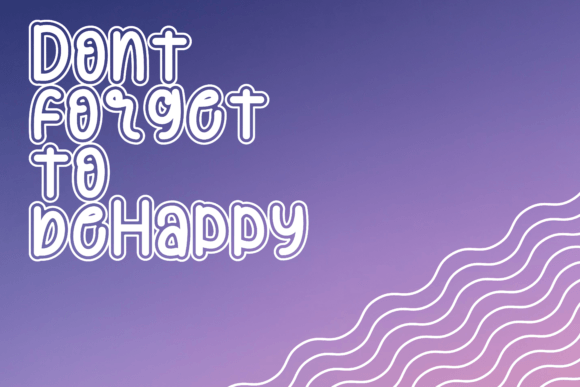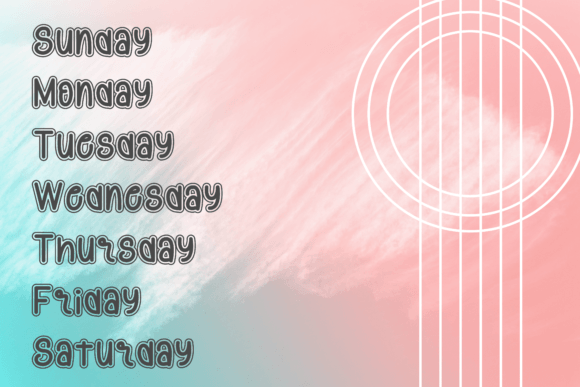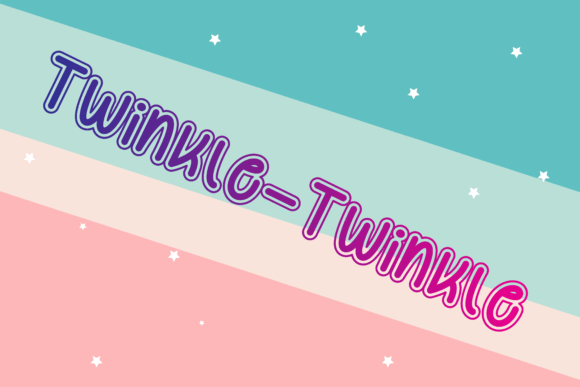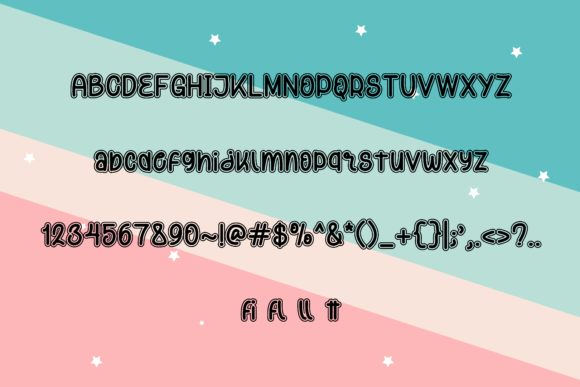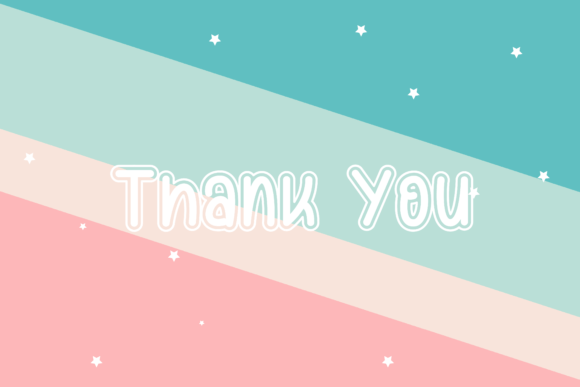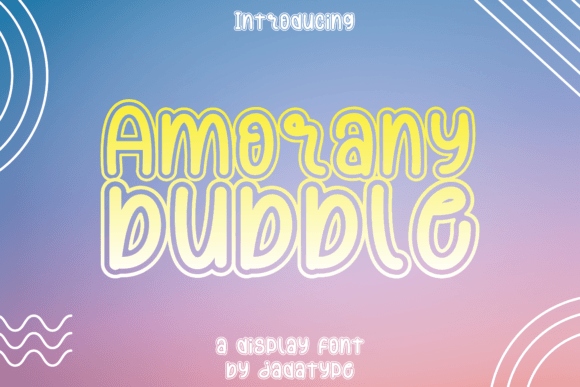
The Perfect Font to Bring Joy to Your Designs
Have you ever stumbled upon a font that makes you smile and instantly sparks a creative idea? For designers, finding that perfect font can be a game-changer. It’s like stumbling upon a hidden treasure that elevates your work to the next level. That’s exactly what happens when you discover the Amorany Bubble Font.
This delightful display font is designed to bring a touch of fun and playfulness to your designs. With its bouncy, bold, and exciting feel, the Amorany Bubble Font is perfect for printing your designs, creating engaging social media posts, writing a heartfelt letter, or crafting a handmade gift. As a designer, you’ll appreciate the versatility and uniqueness that this font brings to your work.
Key Features of Amorany Bubble Font
- Unique Characteristic: Distinctive bubble-like shape and rounded edges, adding a playful and whimsical touch to designs
Amorany Bubble Font Review
As a designer, I was excited to dive into the Amorany Bubble Font and see what it had to offer. Here’s my honest take:
- The Amorany Bubble Font has a unique, playful vibe that’s perfect for creative projects.
- The font is highly customizable, with a wide range of size and color options.
- The bubble effect is smooth and consistent, making it easy to read.
- The font may not be suitable for formal or professional projects due to its playful nature.
- The bubble effect can be distracting if used in large blocks of text.
Overall, I think the Amorany Bubble Font is a fun and creative option for designers looking to add some personality to their projects. While it may have some limitations, it’s a great choice for social media graphics, advertising, and other playful applications. With some careful consideration of its use, the Amorany Bubble Font can be a valuable addition to any designer’s toolkit.
Amorany Bubble Font is ideal for creative projects, such as social media graphics, posters, and flyers. It’s also suitable for use in wedding invitations, party decorations, and other celebratory materials.
To get the most out of this font, experiment with different font sizes, colors, and arrangements to create visually appealing designs.